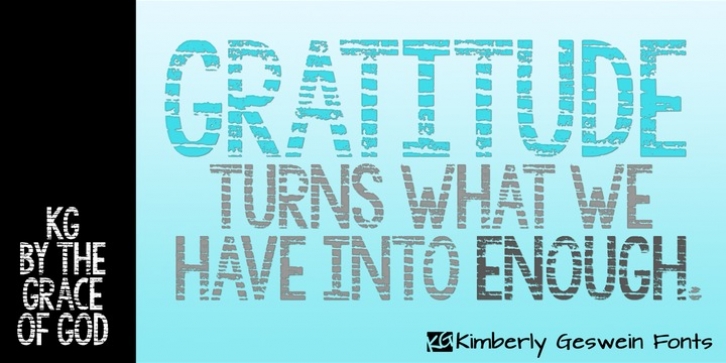
KG By The Grace Of God was designed by Kimberly Geswein and published by Kimberly Geswein. KG By The Grace Of God contains 1 style.
Inspired by the decayed lettering on the signs at Siesta Key beach painted on weather-worn old wood in Florida, these letters are made to look like peeling paint.